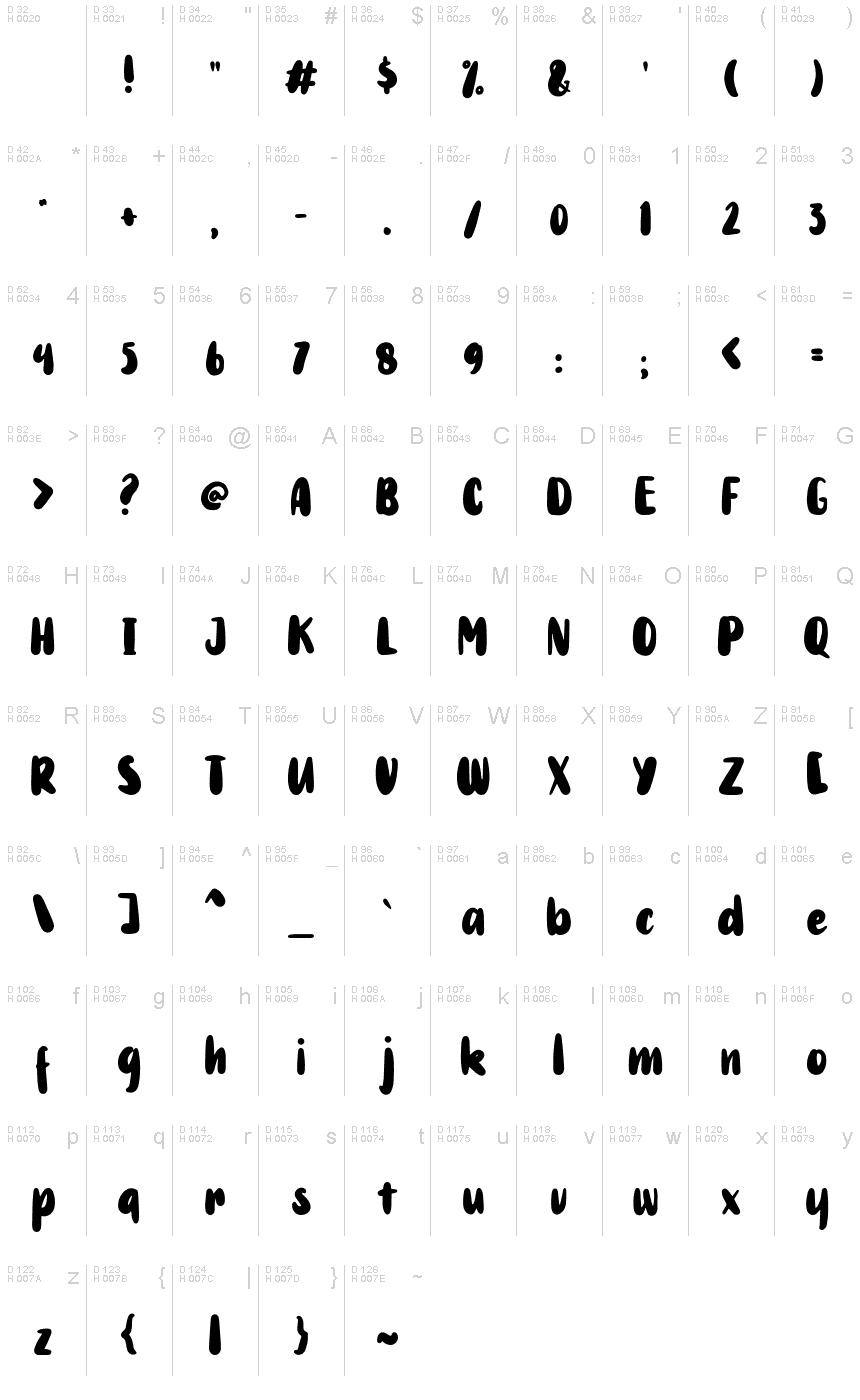
Rodit Bugs
Meet Rodit Bugs, the playful and bold display font designed by Hardtype. Its cartoon style will add a touch of fun to any project, making it perfect for children's books, comics, and advertising campaigns targeting a youthful audience. The thick lines of this semi-bold typeface make for easy readability on both print and digital platforms. Let your imagination run wild with Rodit Bugs - it's sure to bring your designs to life!